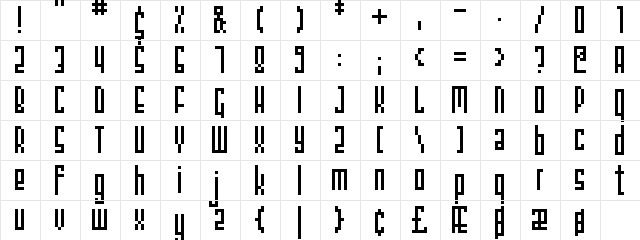
Bromen Regular
Design Context for Bromen Typeface
Bromen is a composed and adaptable typeface that performs quietly and consistently across a wide range of design contexts.
Pro Tip: Use Bromen in both headline and body roles to test its range before committing to a single application.